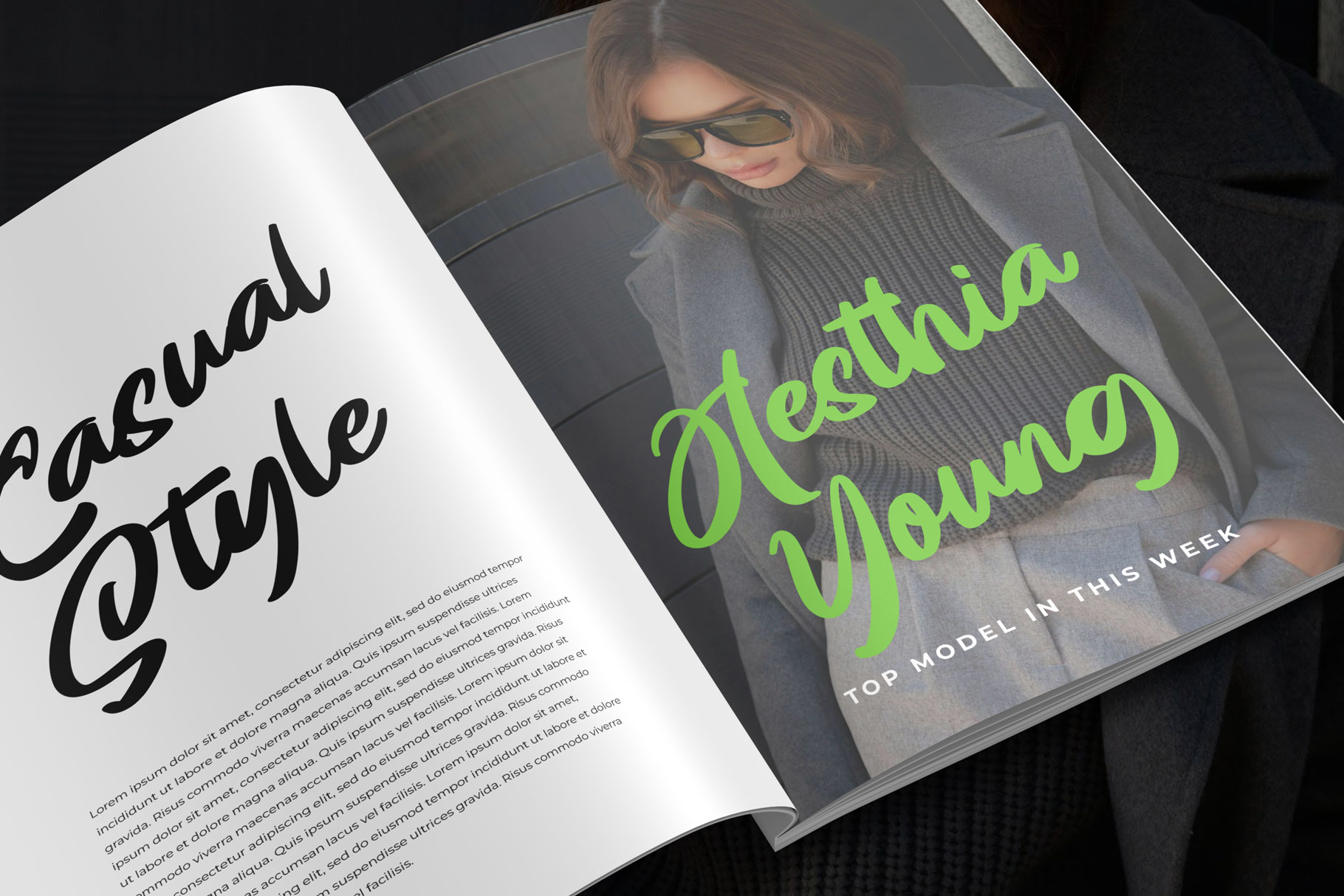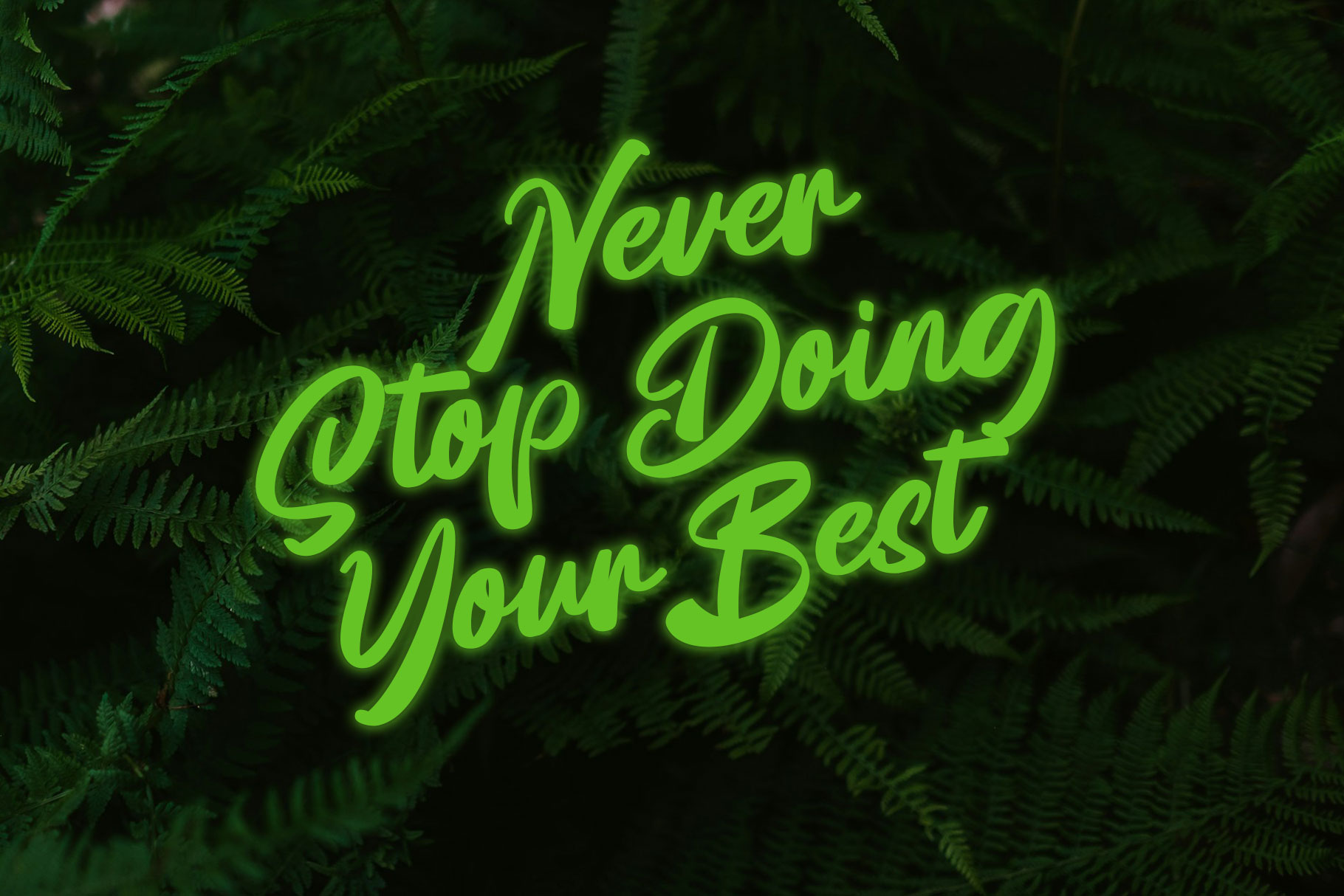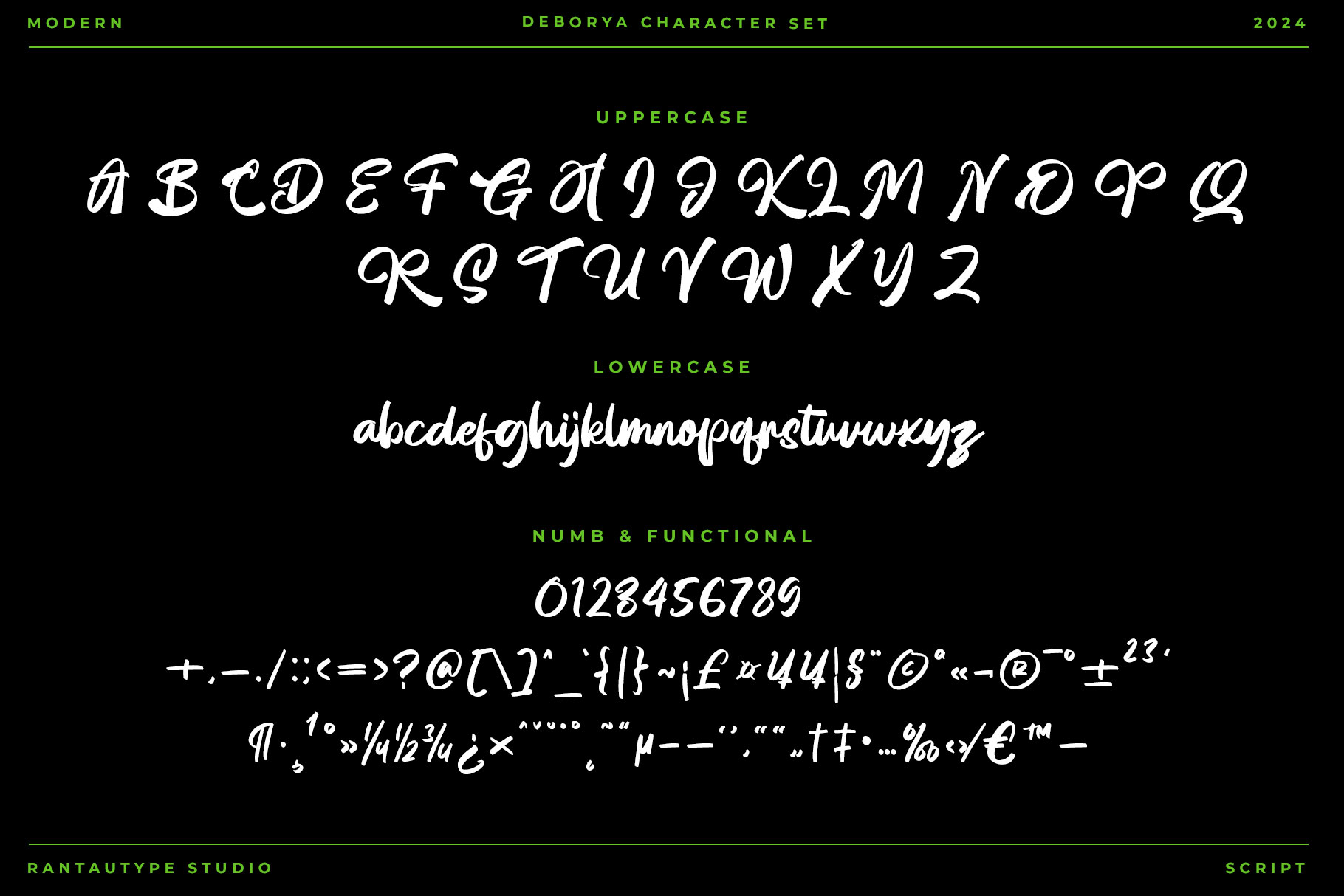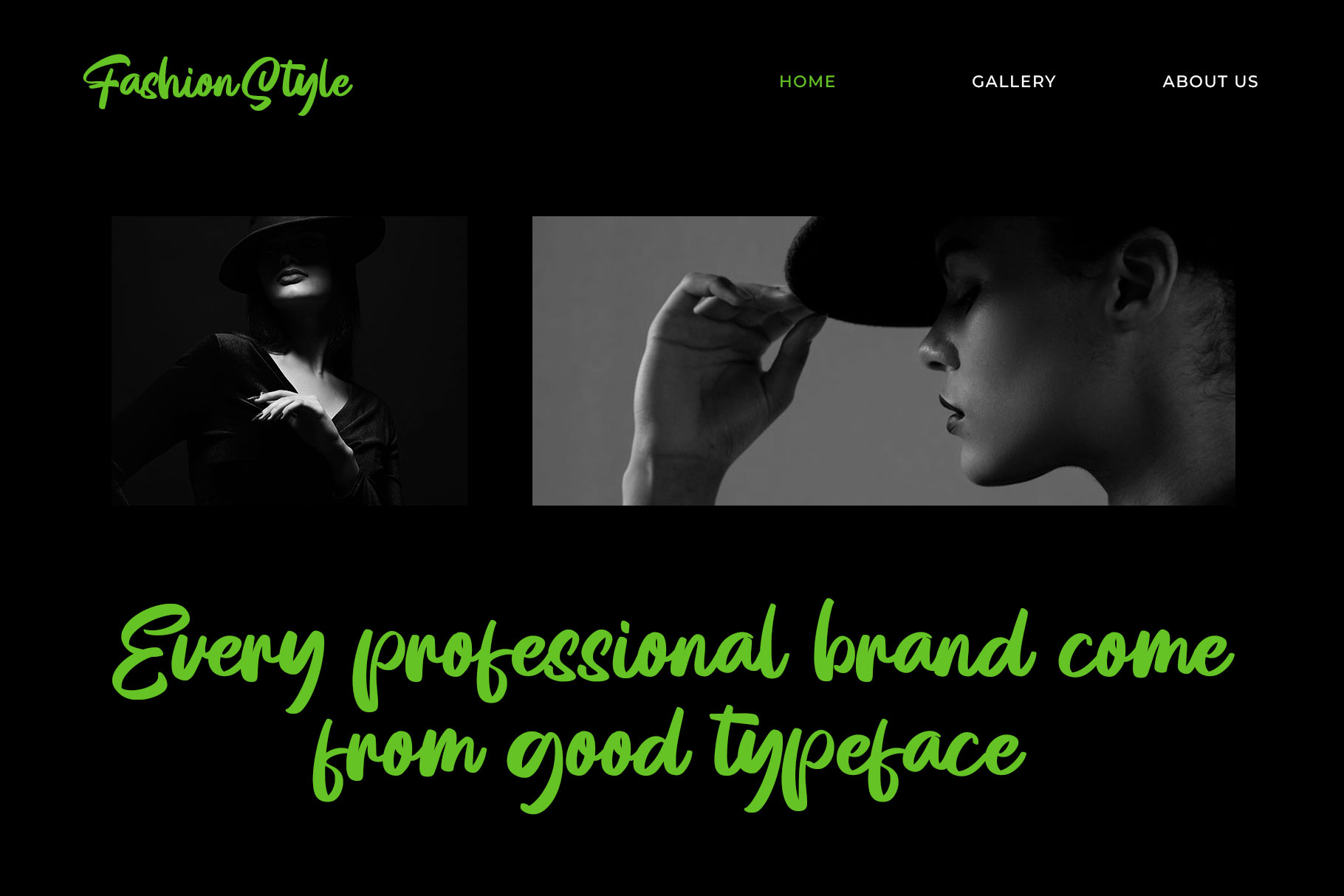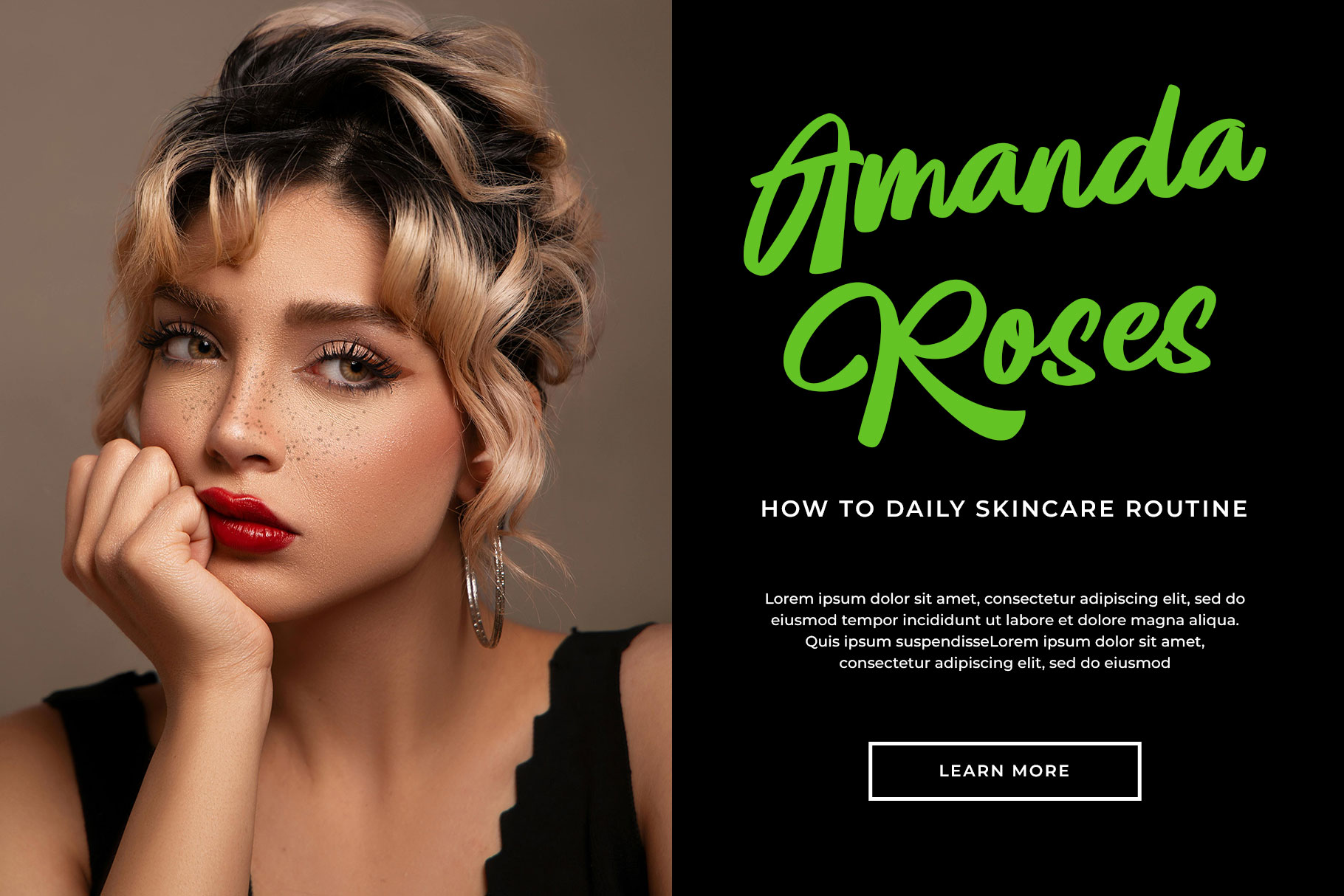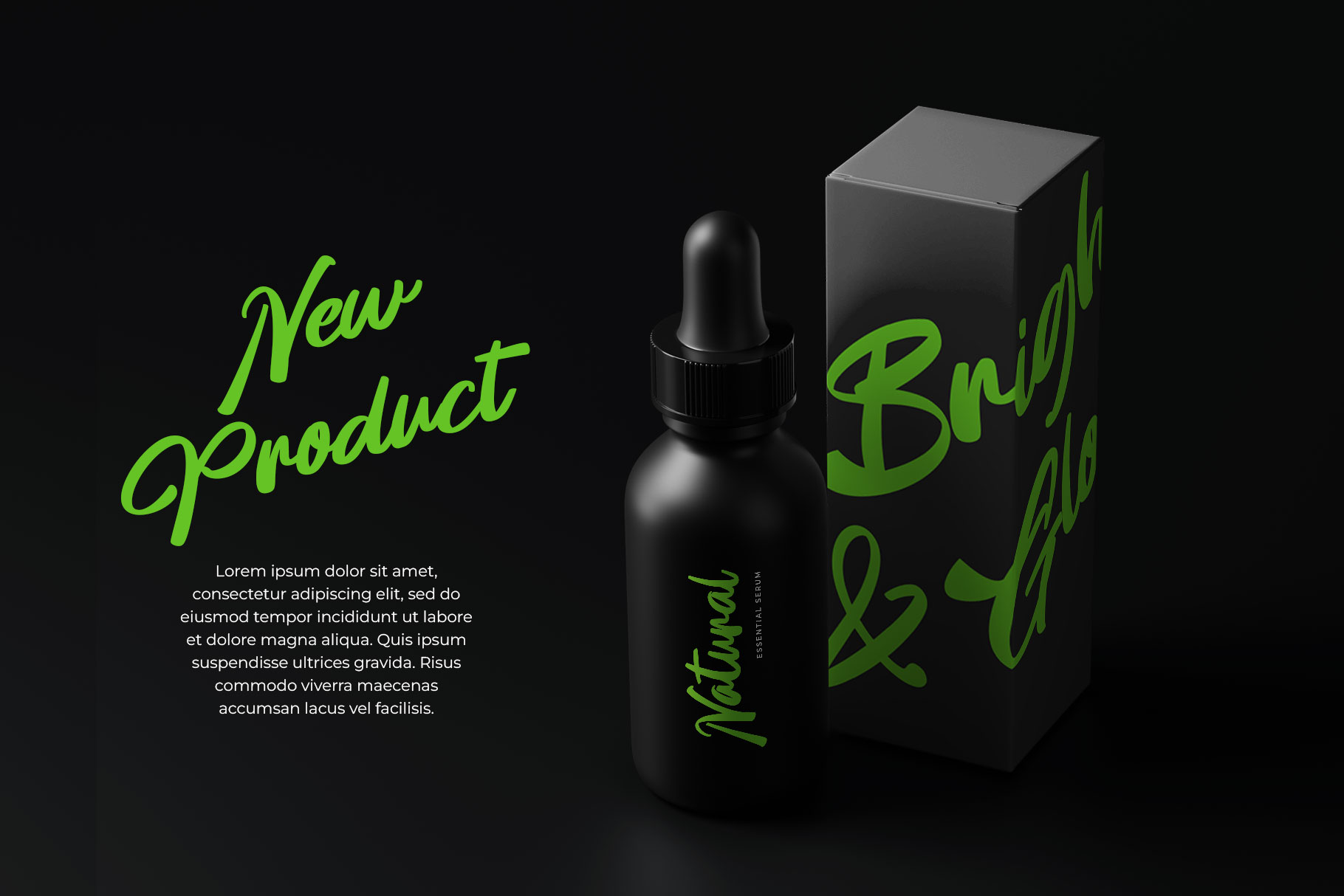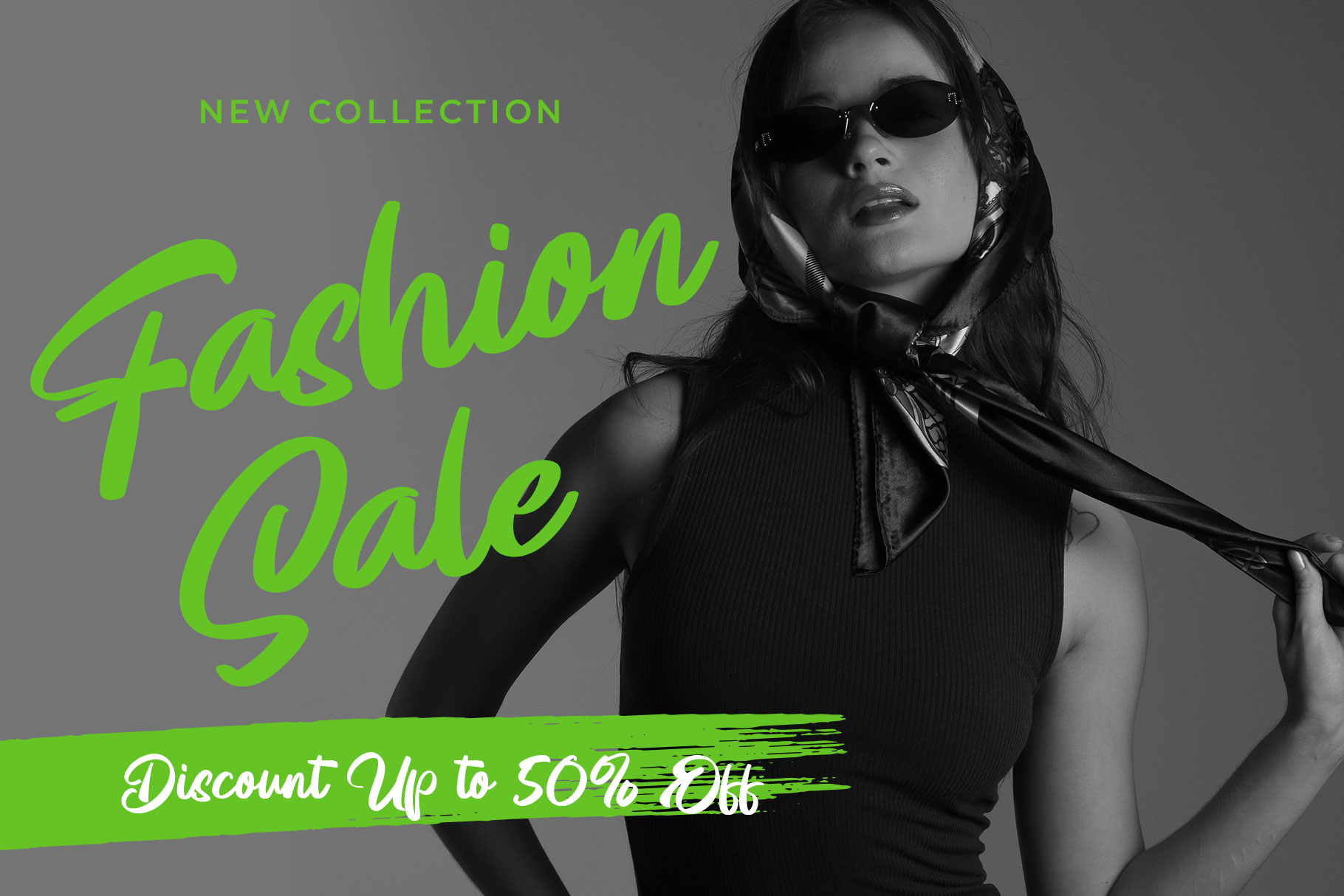
Demorya Bold Script Font
Demorya is bold script font come with modern and trendy style. Demorya is a perfect choice for any creative endeavor, lifestyle design such as logos, title, watermark on photography, cover, branding, display and magazine, wedding event, corporate brand, quotes, album cover, business card, business project, company branding and more project with handwritten taste.